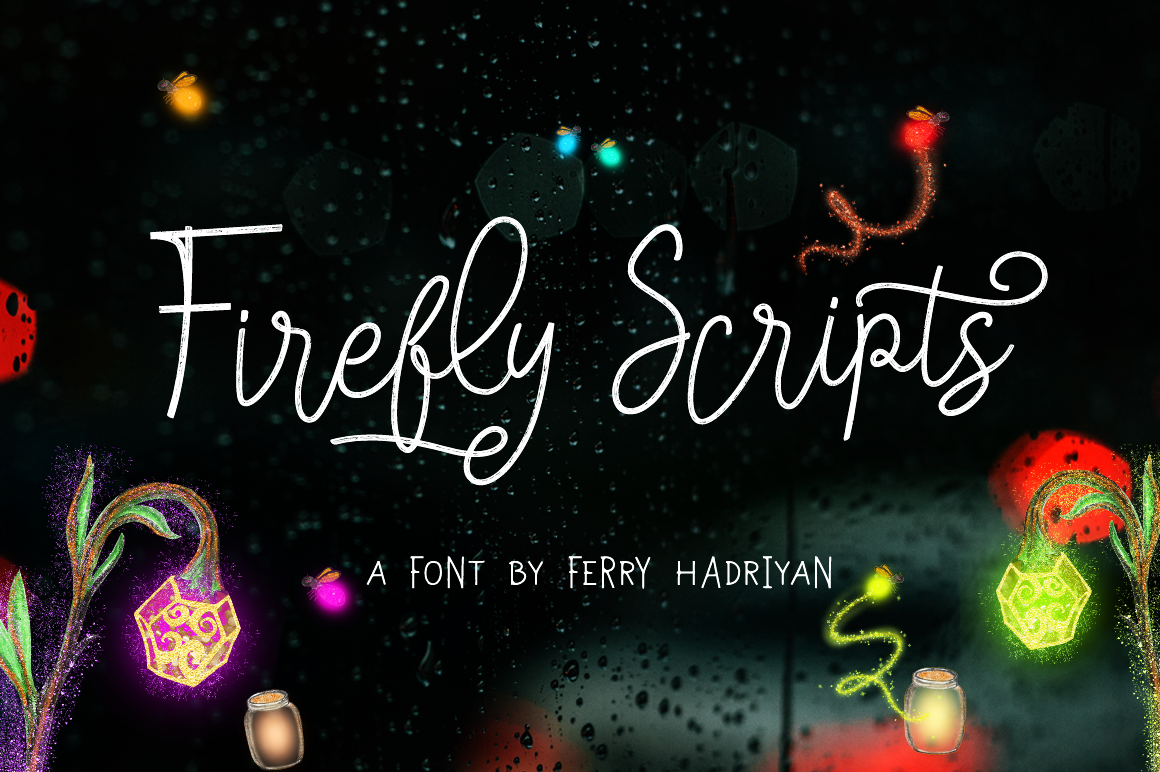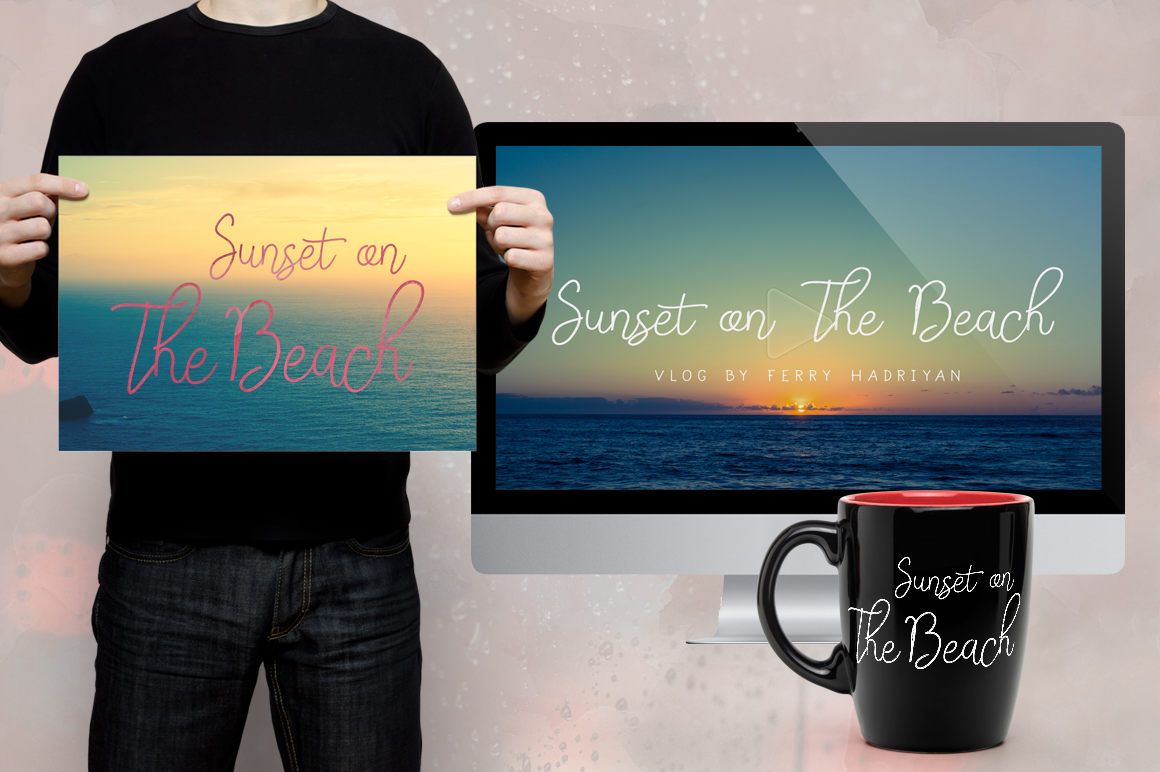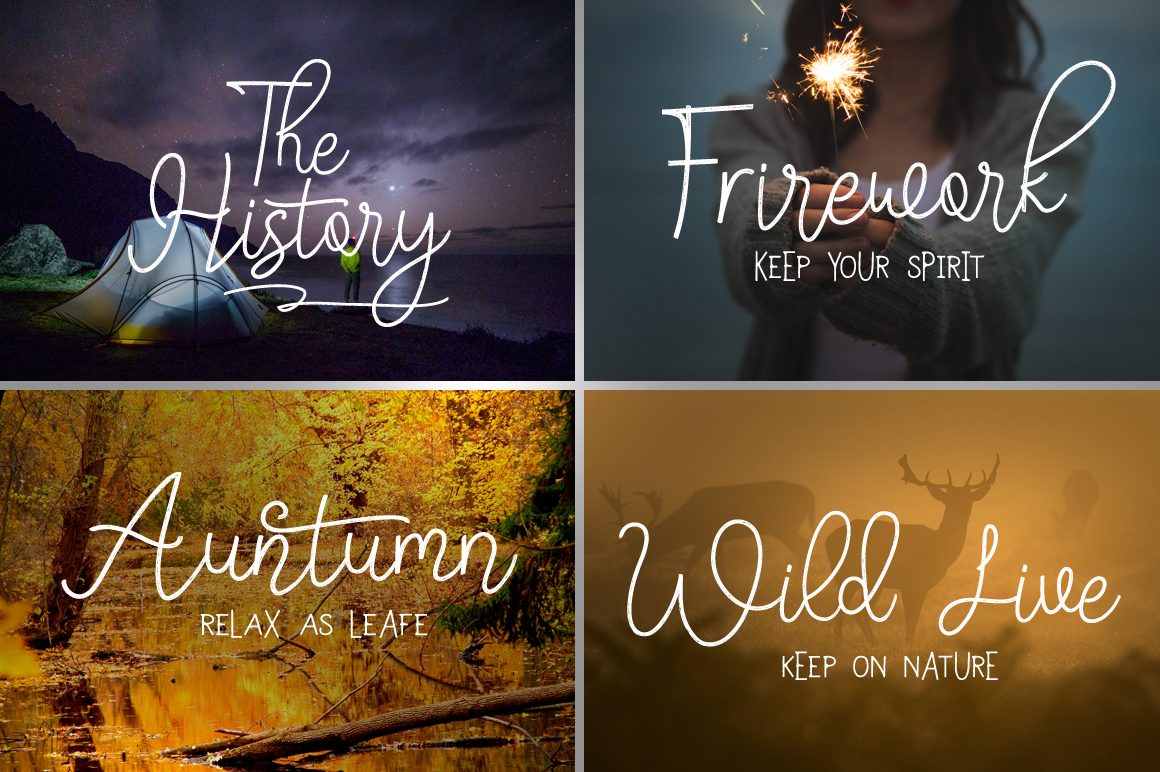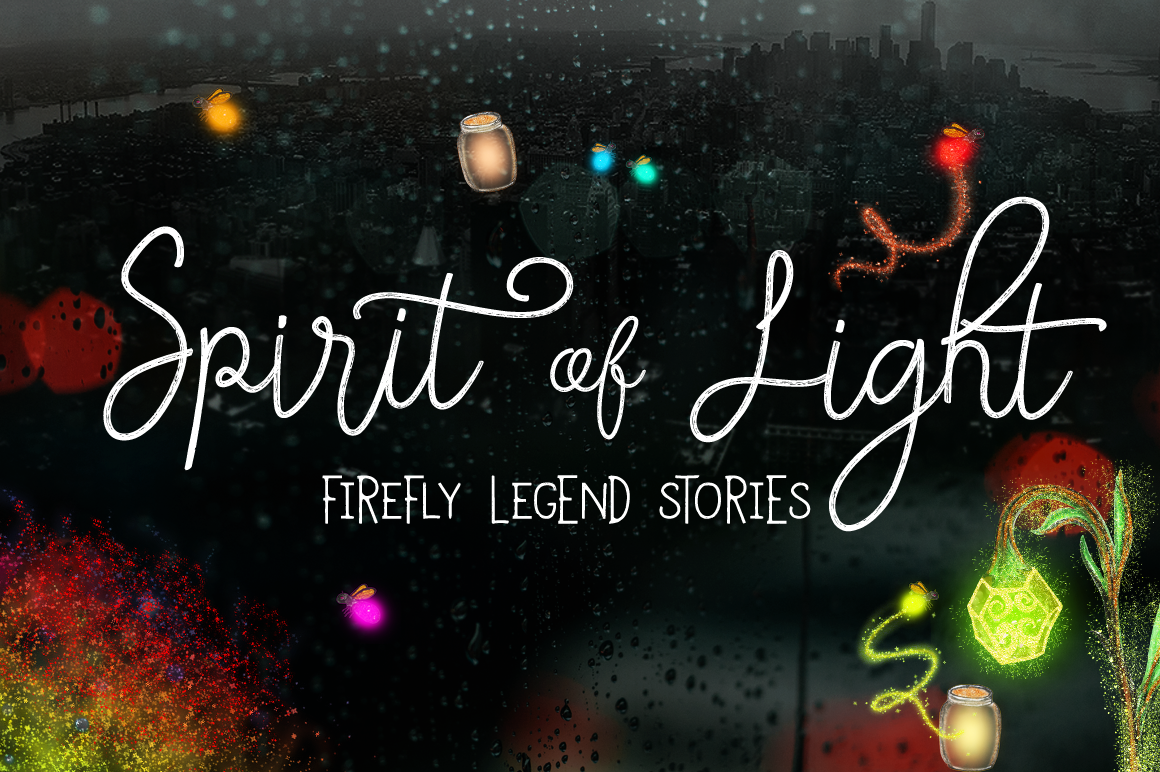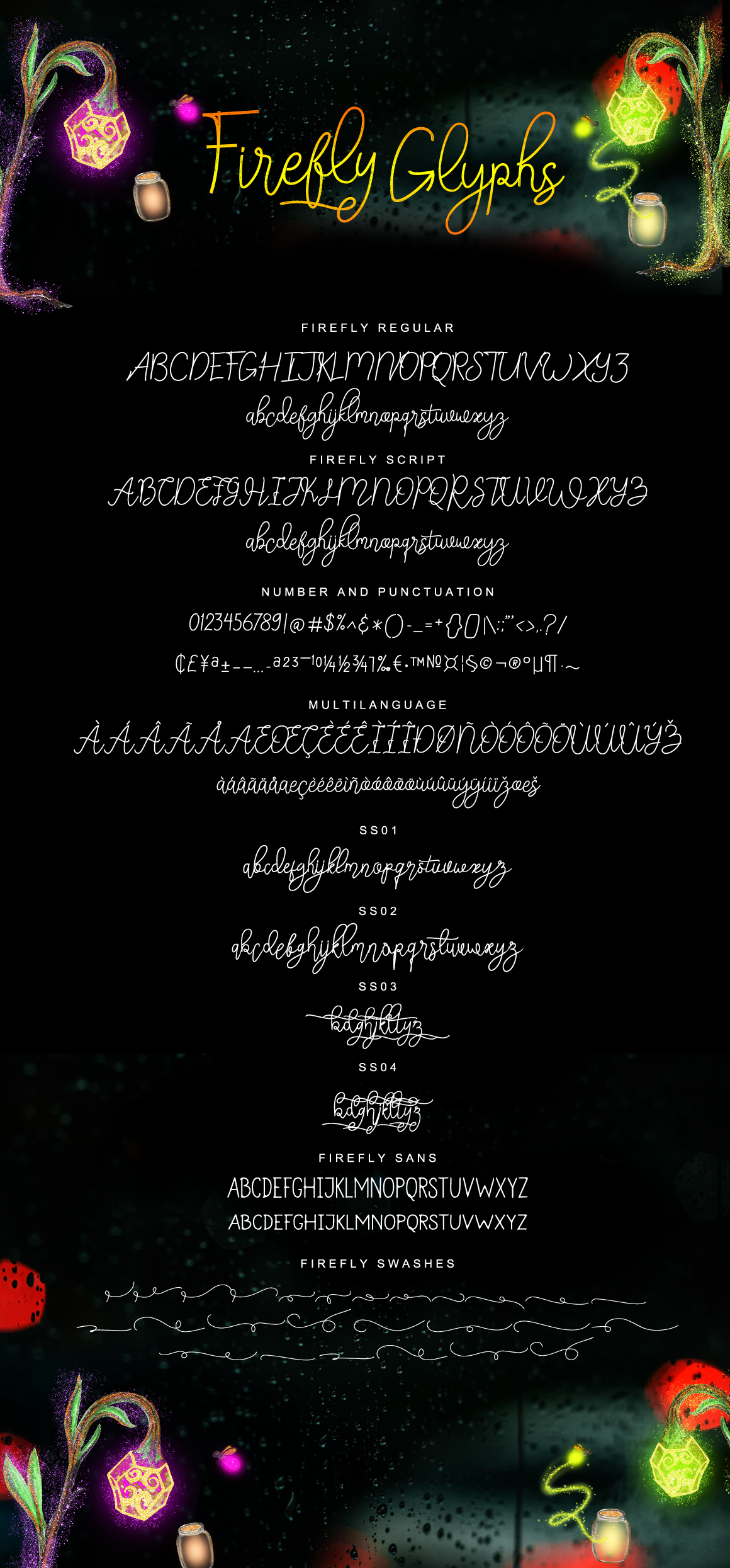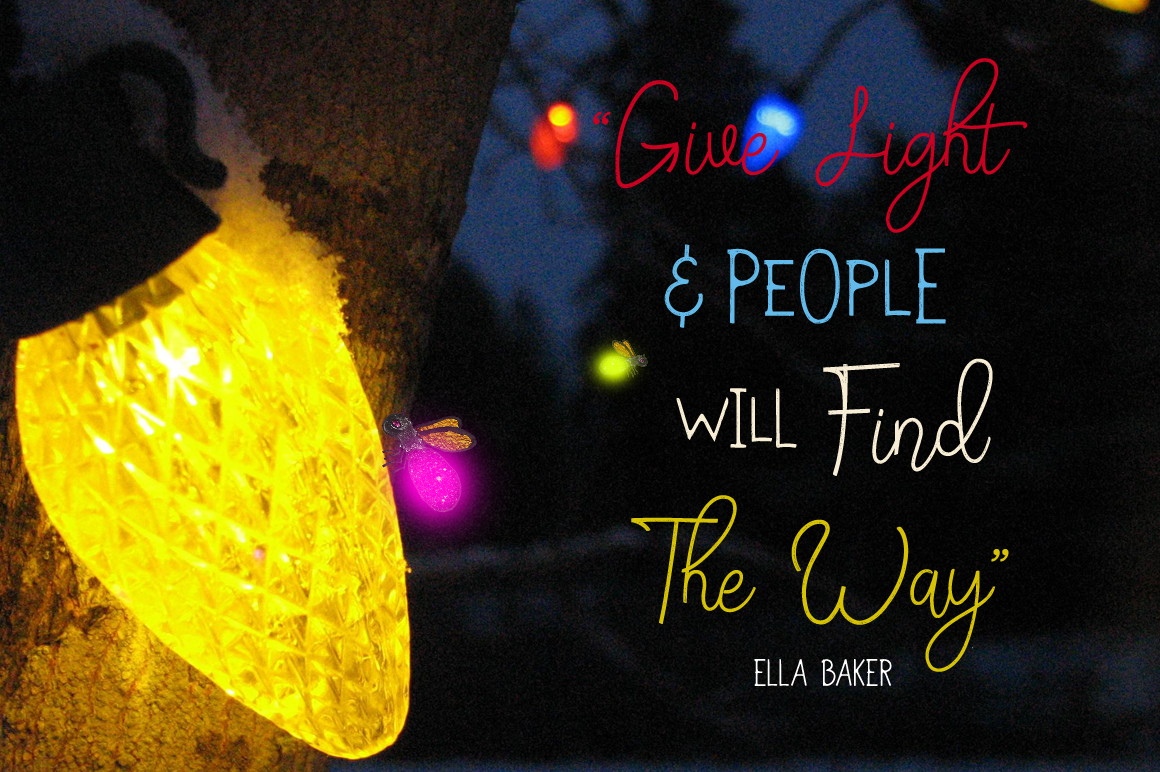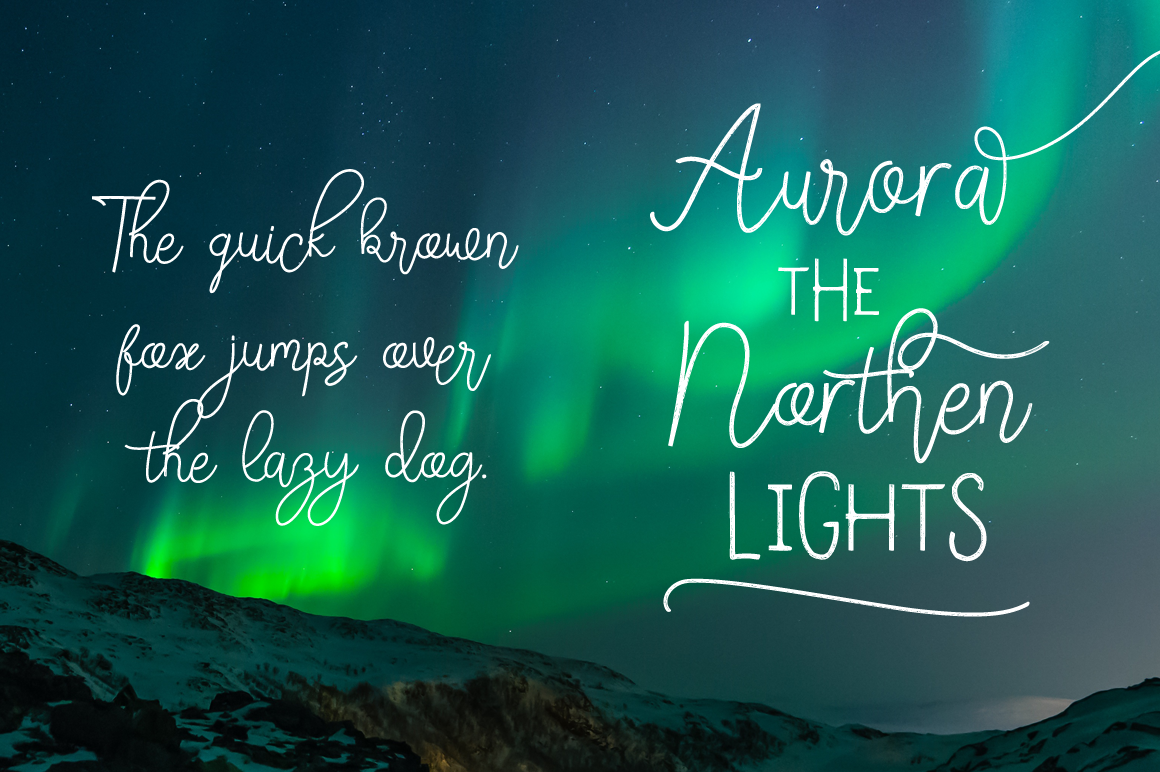
Firefly Font
About Firefly Font
Firefly is a crafted font evokes memories of childhood summer nights chasing fireflies and spending the evenings out of the house. Firefly is a beautiful and charming script font, handwritten to give your designs a textured and genuine feel.